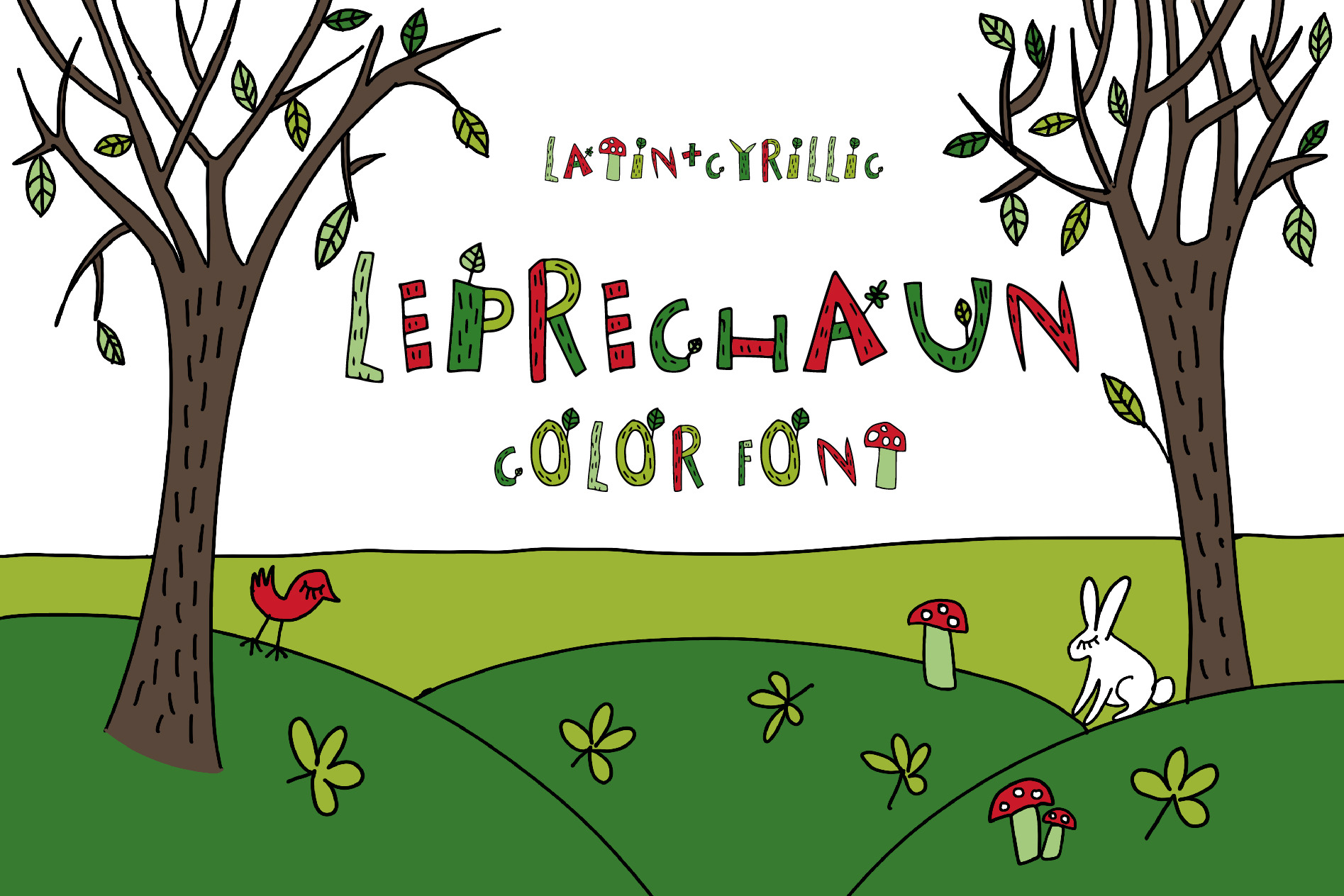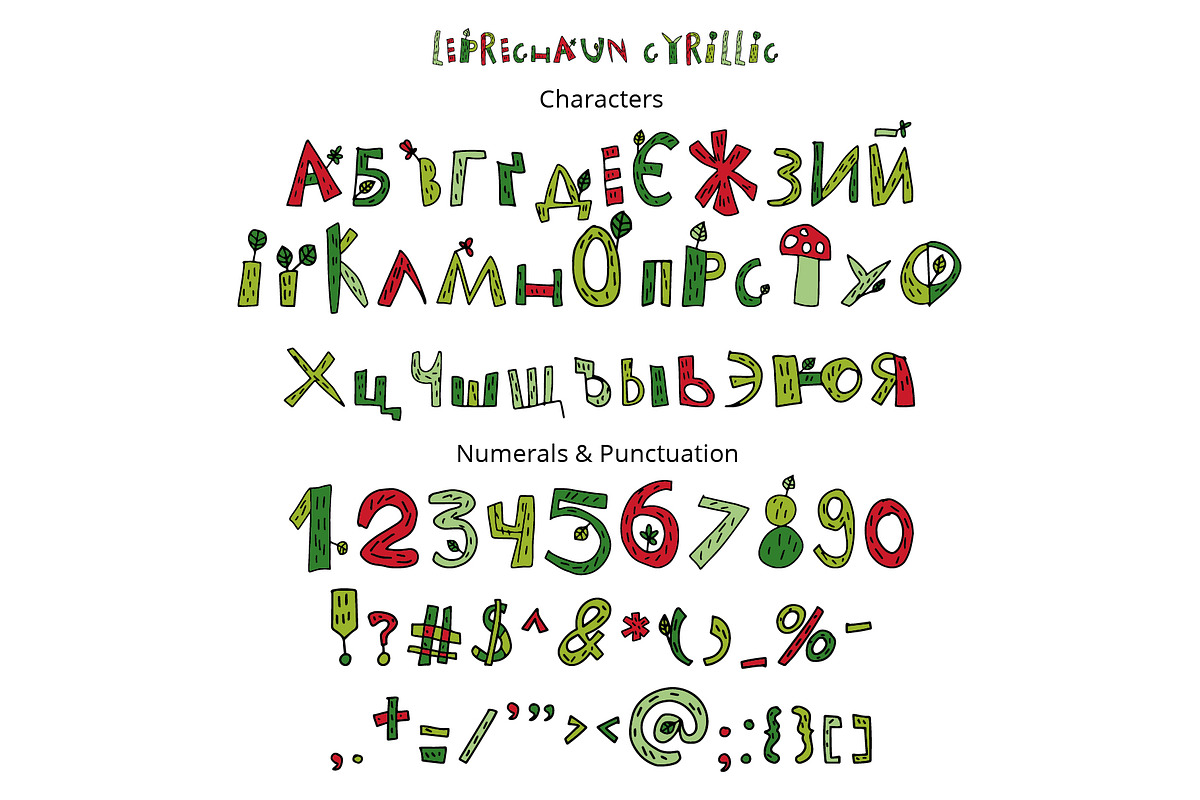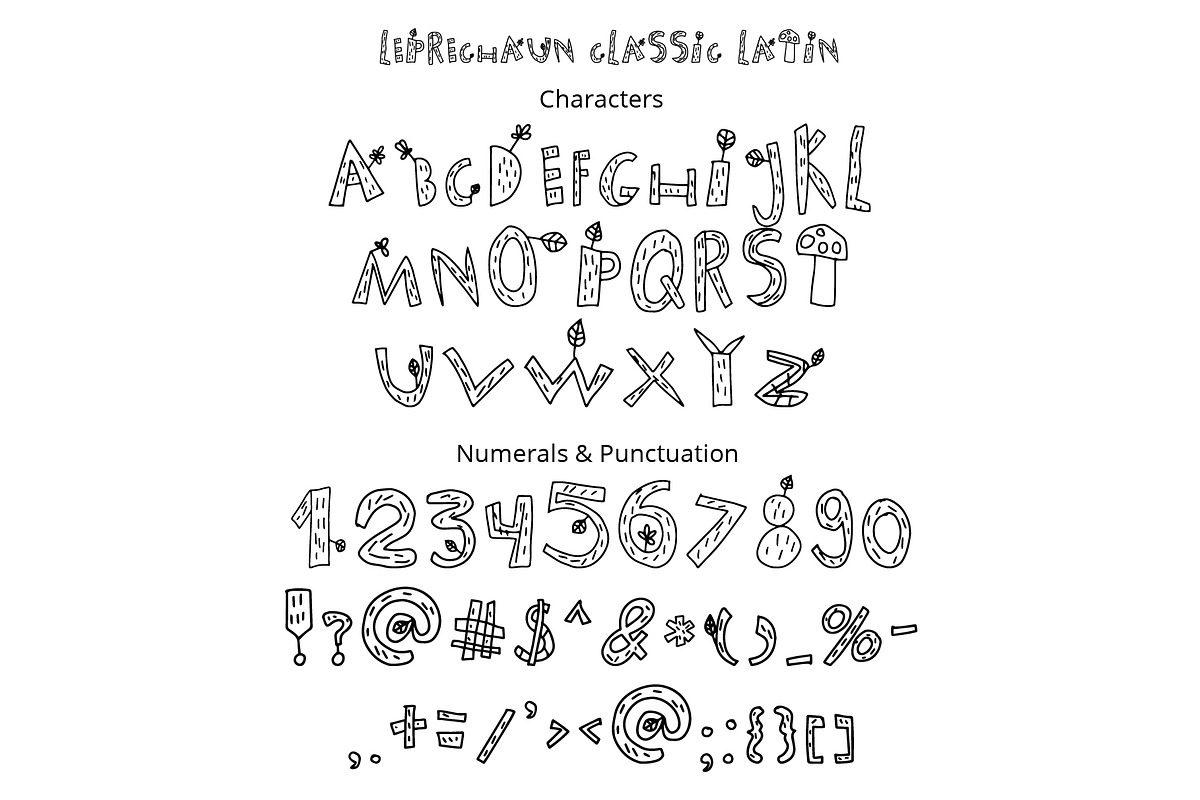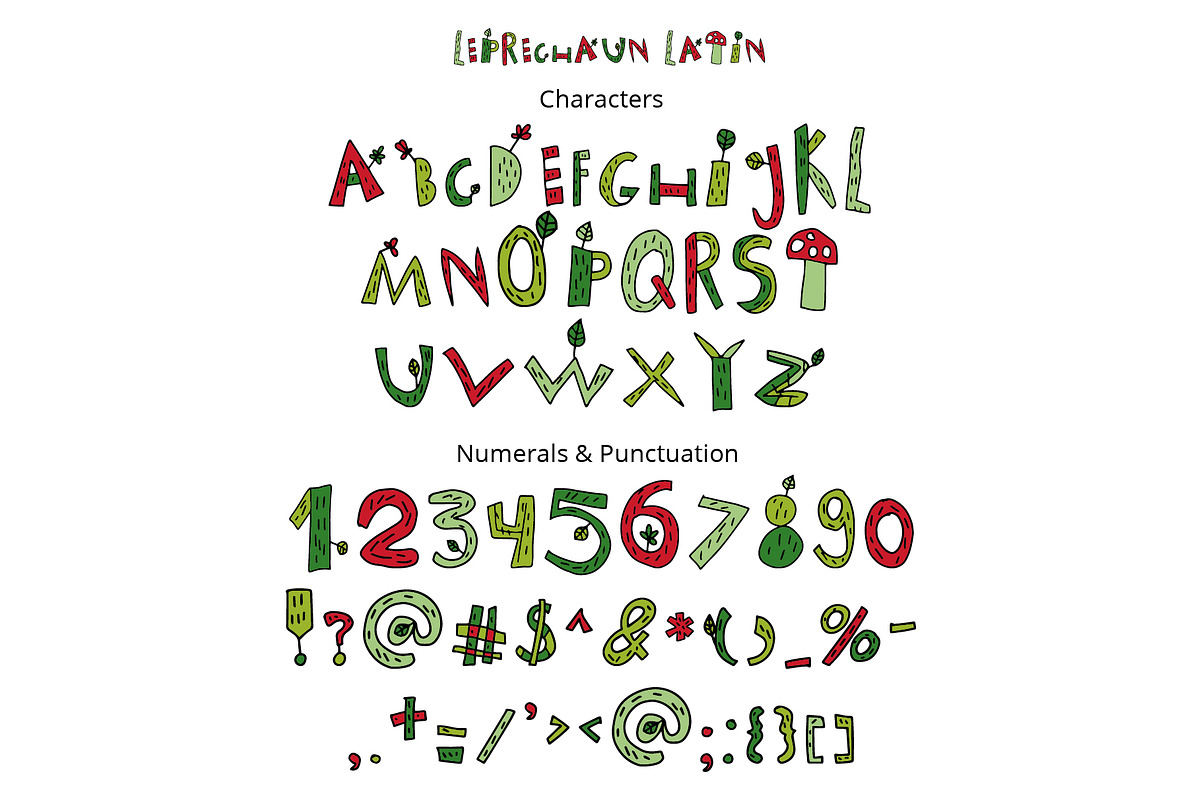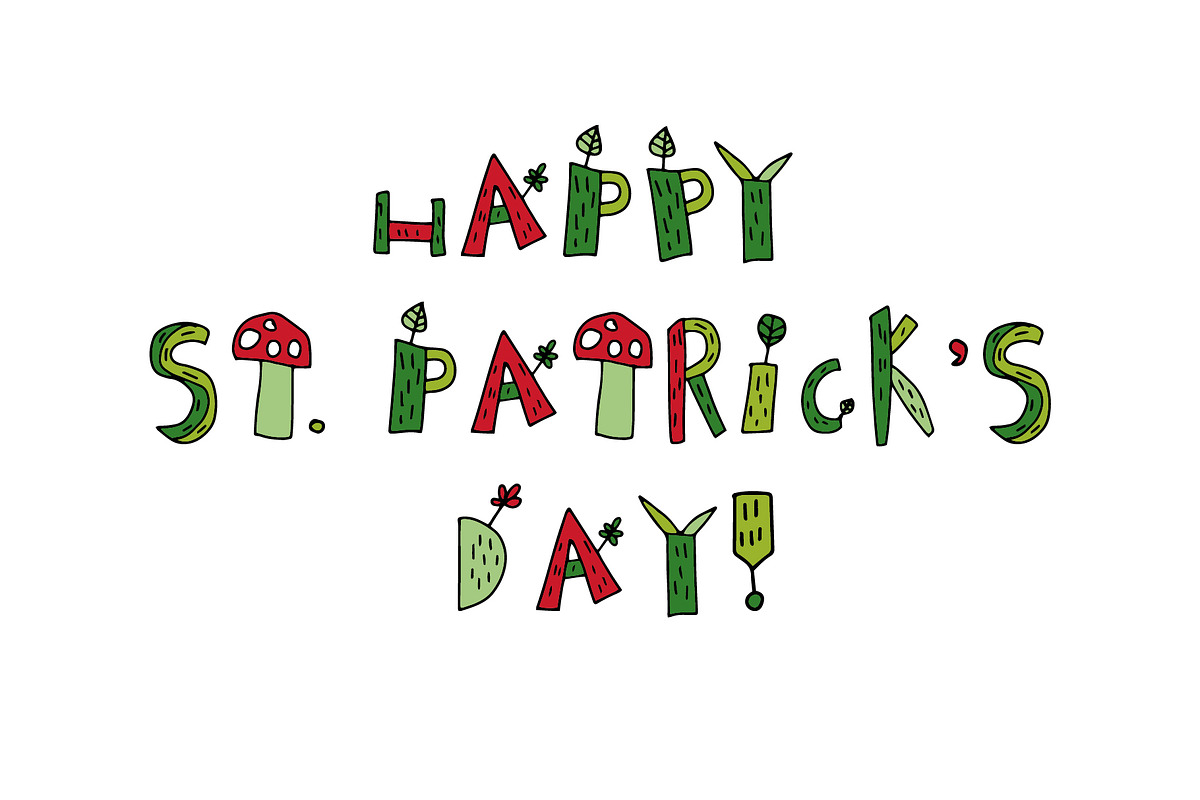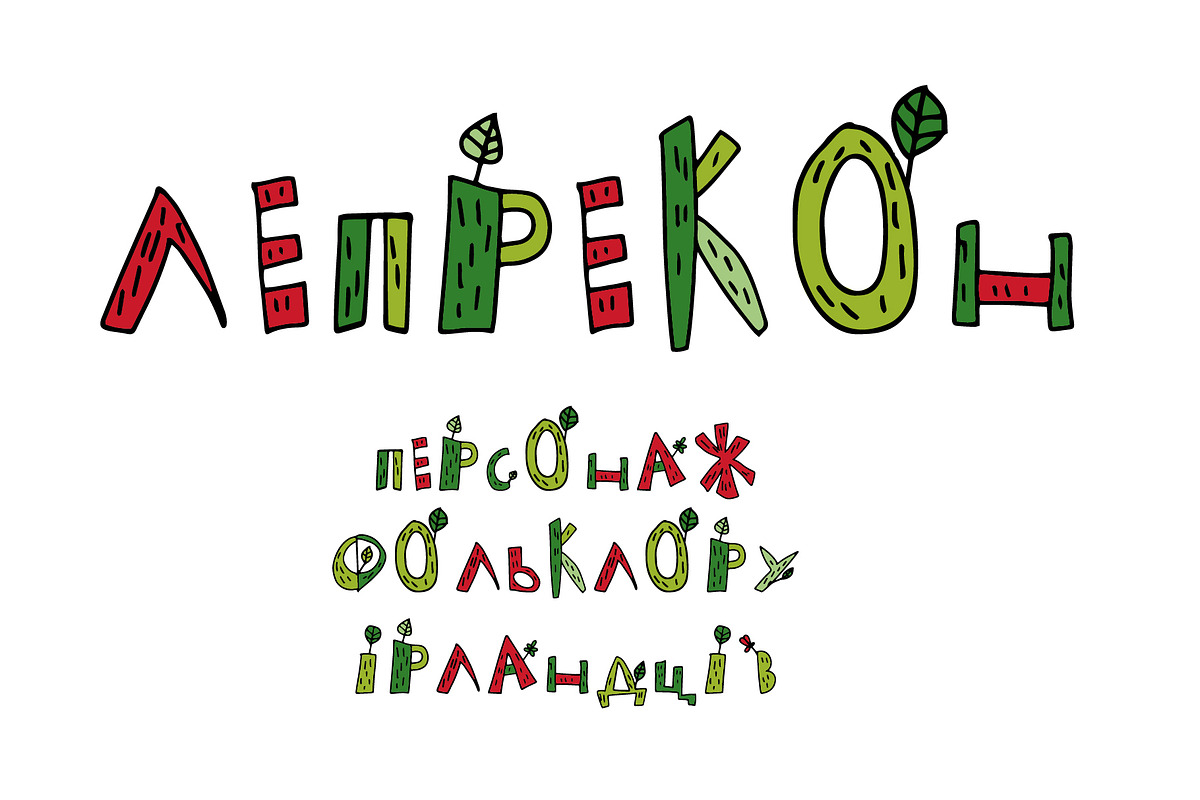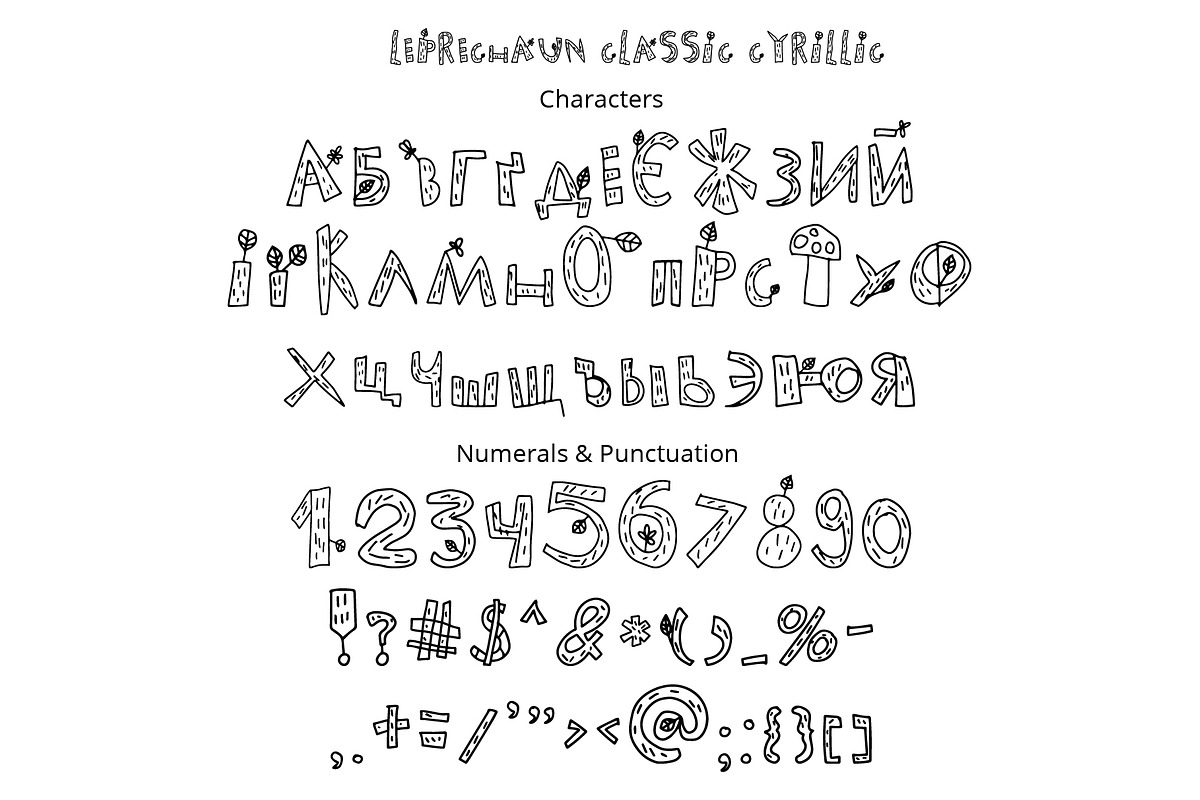
Leprechaun color font
Handmade fun color OpenType-SVG font – Leprechaun with Latin and Cyrillic letters! I've made this font wis my little son Nazar. His drawings inspired me to create this font. Leprechaun font contains Latin letter and Cyrillic letter set, numerals and punctuation. This font work nicely for all sorts of things including t-shirt design, typographic art, social media images and so much more!
Font features:
Standard characters A-Z, 0-9, and punctuation + classic version for the Latin Basic and Western European set, Cyrillic А-Я set + Ukrainian letters. Thanks and Enjoy!